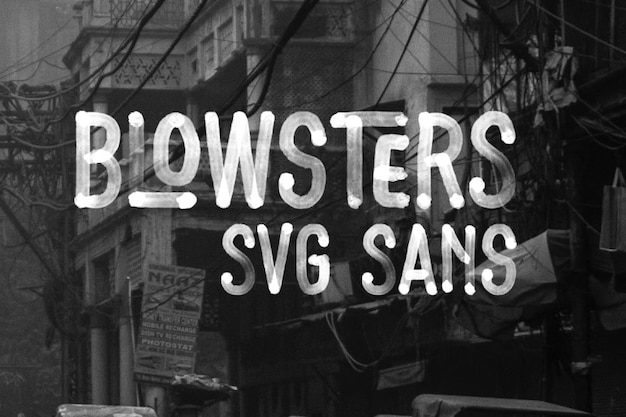
Blowsters Font
Fan of lettering and calligraphy, but tired of the old-boring overused typefaces? Blowsters is the font that will blow your mind. With uppercase, lowercase and multilingual characters, this font also includes ligatures! Meaning that you can use special combinations of certain letters, to give the design a place to breath and change.